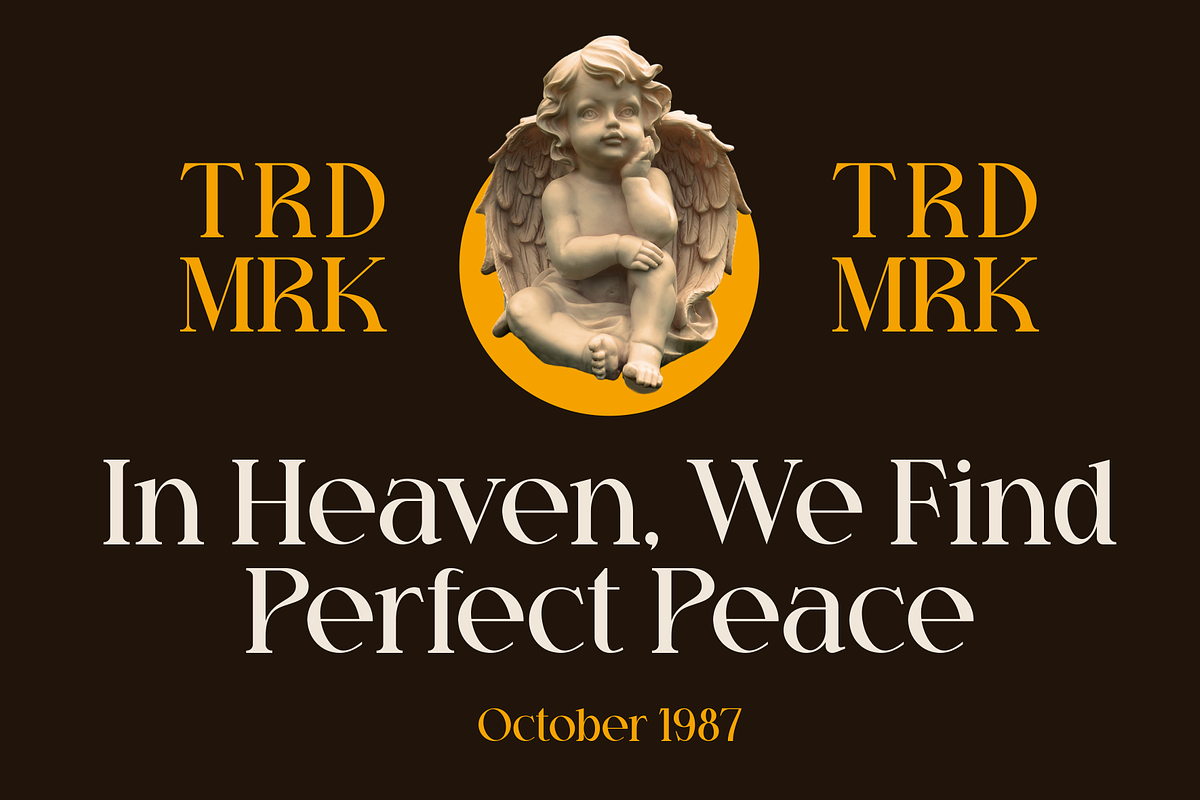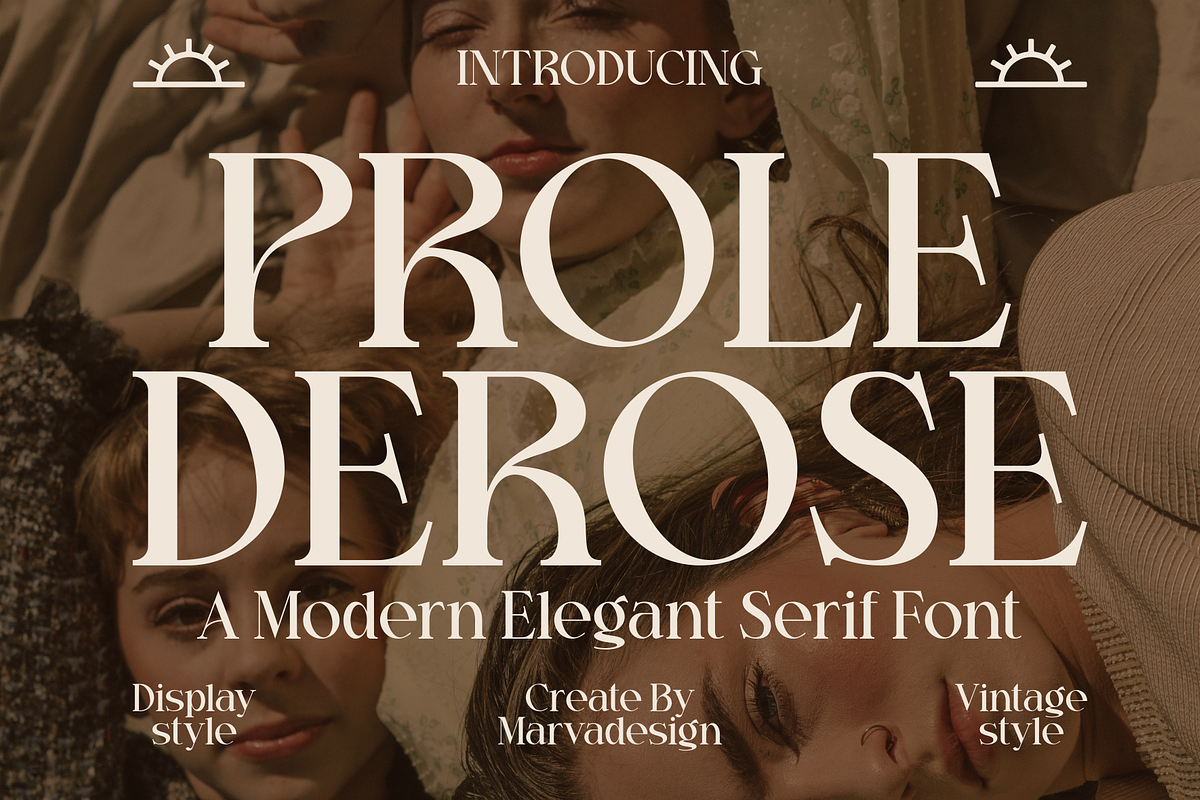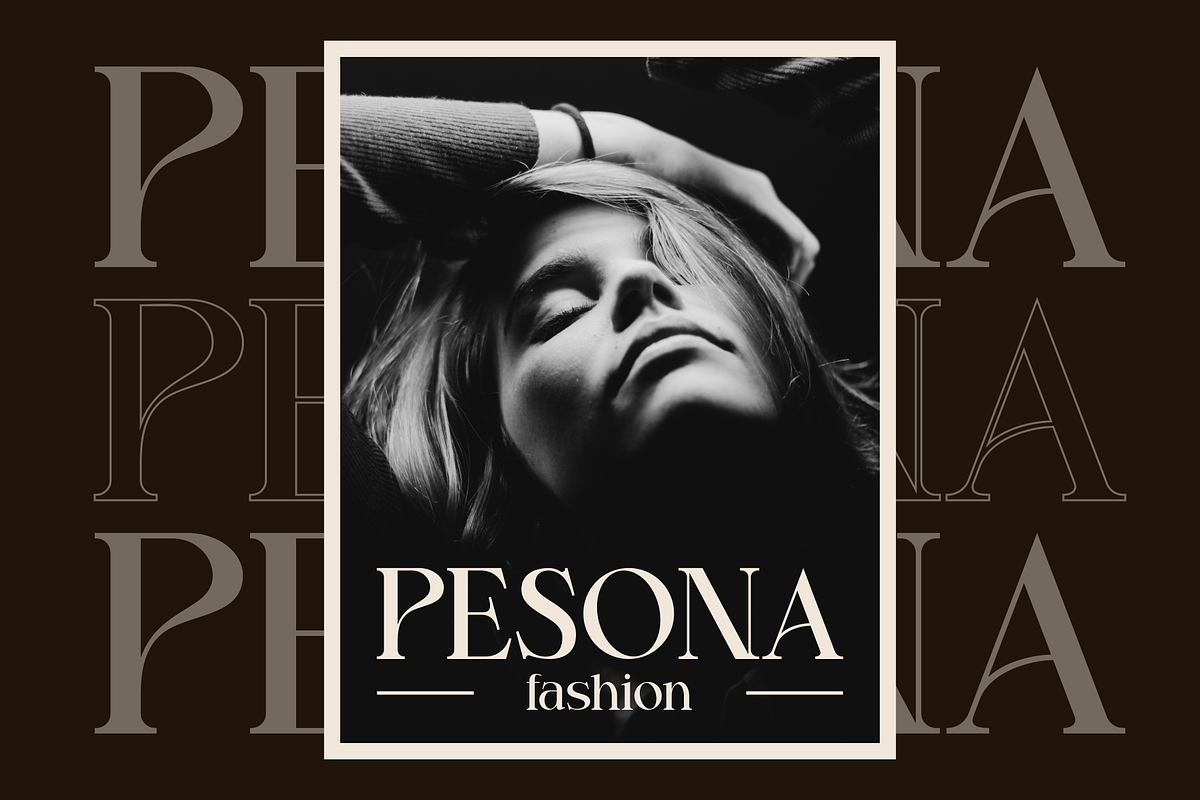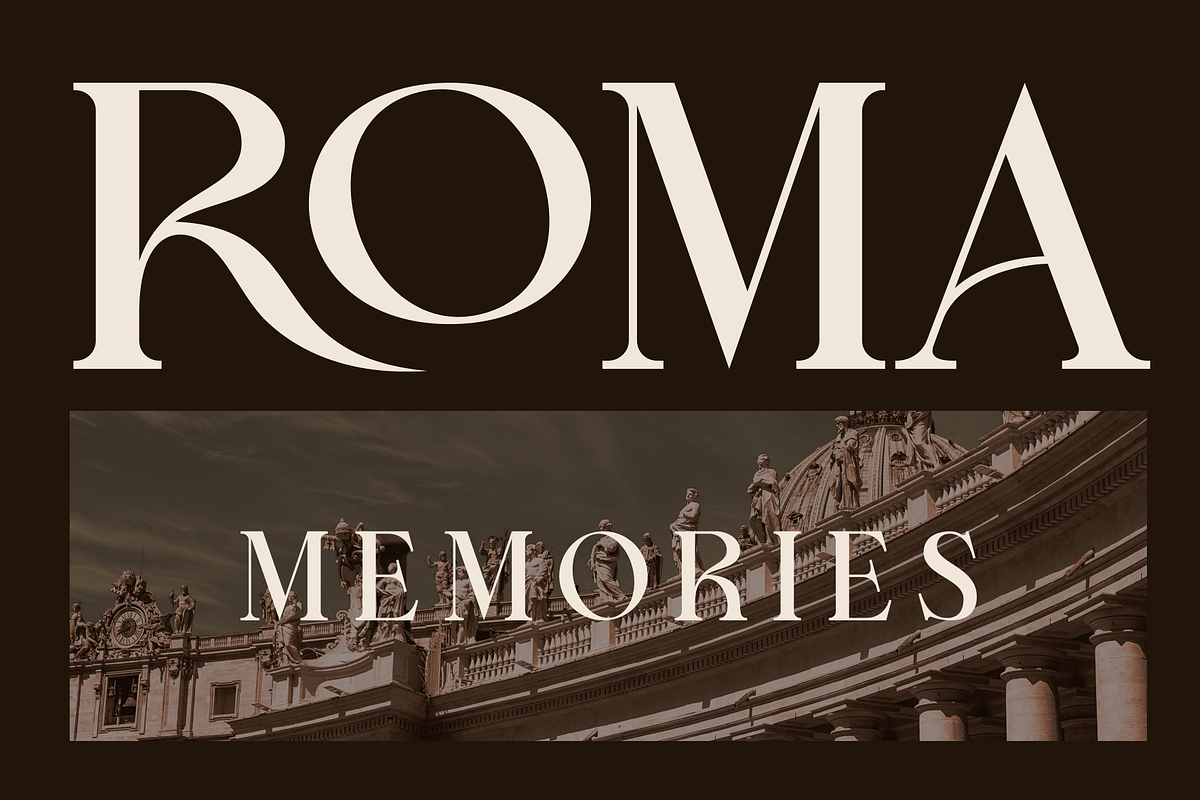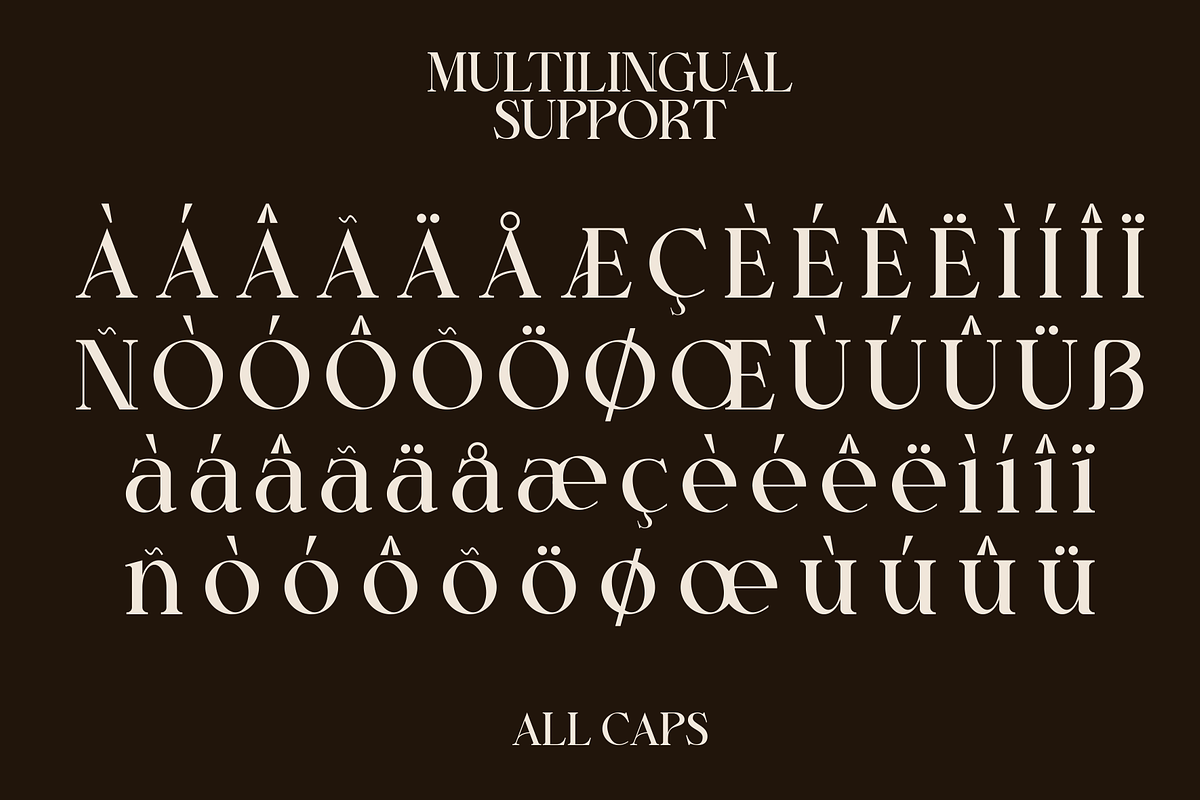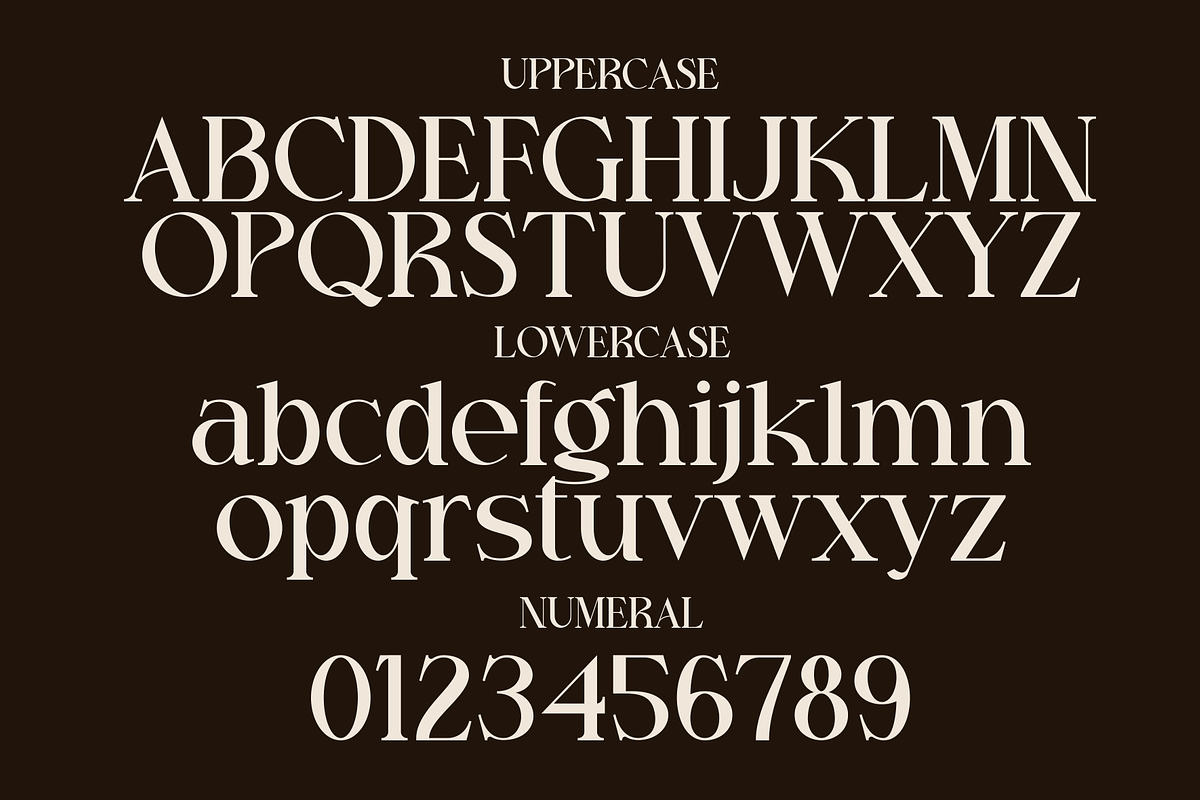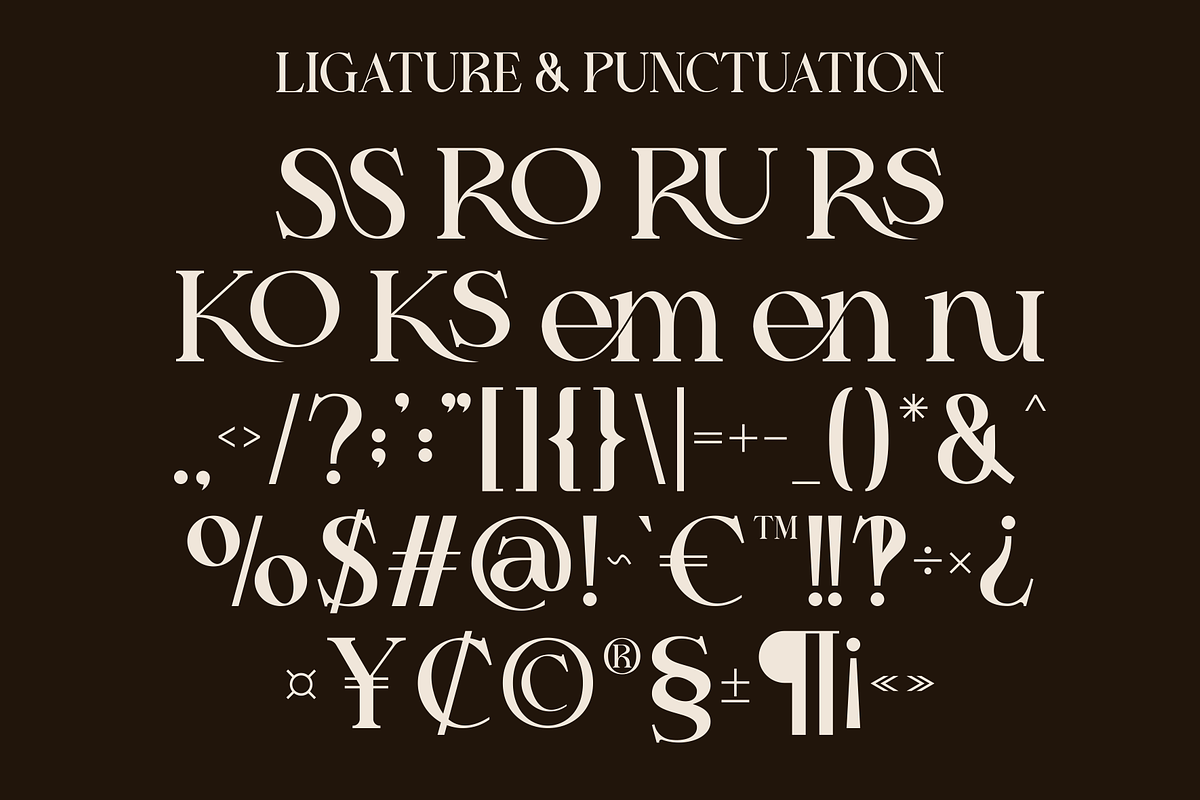
Prole Derose Font
Introducing our new product Prole Derose Font - Modern Font is a bold and authentic display font. The font is suitable for any branding project like logo, Template Design, Product and many more. outstanding in a wide range of contexts.